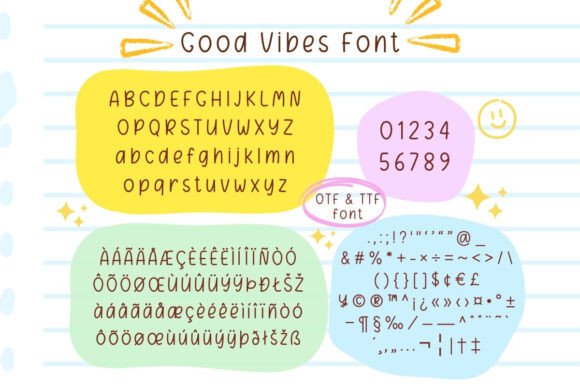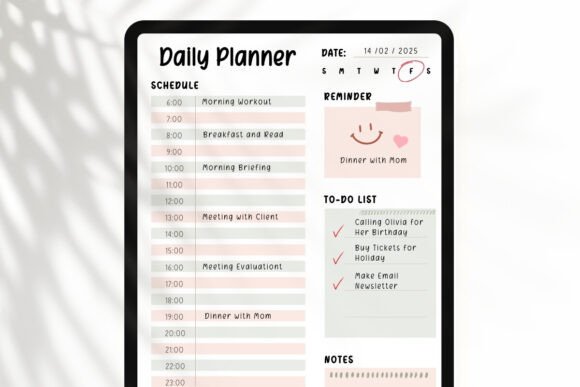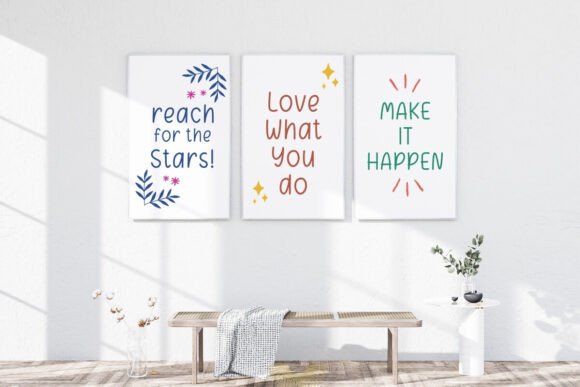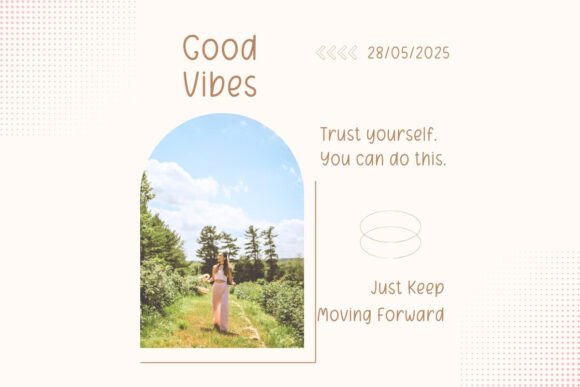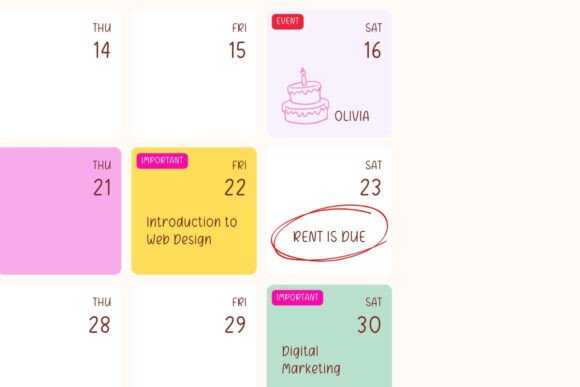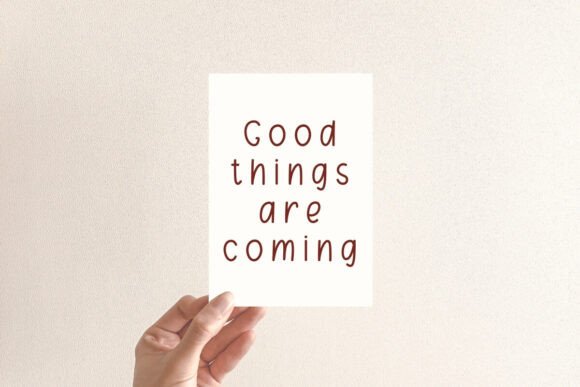
Introducing Good Vibes Font: The Ultimate Handwriting Companion for Creatives
Are you on the hunt for a font that embodies positivity, playfulness, and style? Look no further than Good Vibes, a delightful handwriting font designed to elevate your note-taking, journaling, and creative projects. With its smooth, rounded strokes and charming personality, Good Vibes is the perfect companion for students, crafters, and designers seeking a fun and aesthetic font to bring a touch of warmth to their work.
The Perfect Blend of Style and Functionality
Good Vibes boasts a neat and cute handwritten style that is both visually appealing and easy to read. Its smooth strokes and rounded edges create a soothing visual experience, making it ideal for extended periods of writing or note-taking. Whether you’re a student jotting down notes in class, a crafty individual creating digital art, or a busy professional organizing your thoughts in a digital journal, Good Vibes has got you covered.
Endless Possibilities for Creatives
One of the standout features of Good Vibes is its versatility. This font is perfect for a wide range of applications, including:
- School notes and student planners
- Digital journals and diary entries
- Design and illustration work
What Sets Good Vibes Apart
So, what makes Good Vibes so special? Here are just a few features that set this font apart:
- Neat and cute handwritten style: Good Vibes boasts a unique and charming handwriting style that is both visually appealing and easy to read.
- Perfect for note-taking, journaling, and planners: This font is specifically designed for use in note-taking, journaling, and planners, making it an ideal choice for students and creatives.
- Includes uppercase, lowercase, numbers, and special characters: This font includes a comprehensive character set, ensuring that you have everything you need to create beautiful and engaging content.
Bring Positivity and Style to Your Work
Good Vibes is more than just a font – it’s a way to bring a little positivity and joy into your daily work. With its playful personality and charming style, this font is sure to put a smile on your face and inspire creativity. Whether you’re working on a school project, crafting a digital journal entry, or designing a social media graphic, Good Vibes is the perfect companion to help you spread good vibes and make your work shine.
✨ Neat and cute handwritten style
✨ Perfect for note-taking, journaling, and planners
✨ Includes uppercase, lowercase, numbers, and special characters